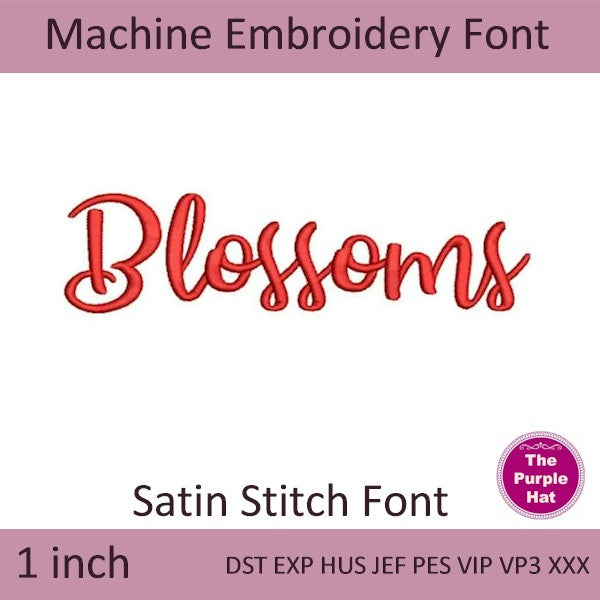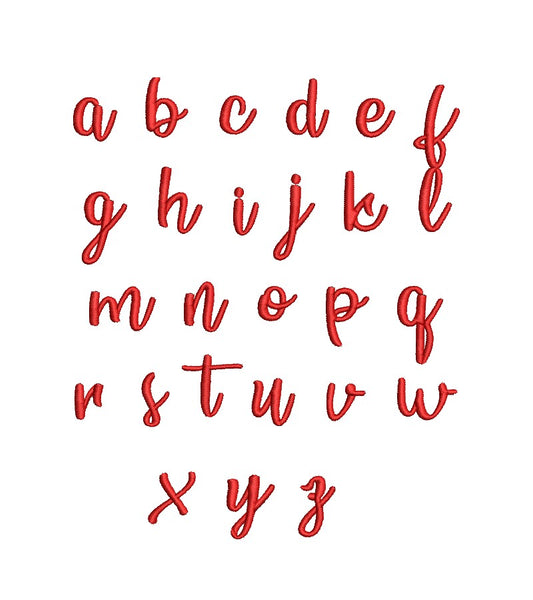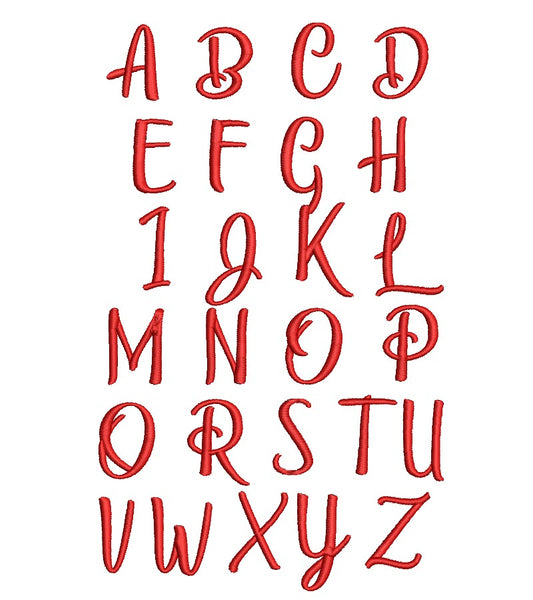
Blossoms machine embroidery font 1 inch
🌸 Blossom Satin Stitch Font
A modern and beautiful font to brighten up your embroidery projects!
🧵 Name: Blossom
🔠 Uppercase Letters: A-Z
🔡 Lowercase Letters: a-z
✨ Style: Modern satin stitch
📏 Size: 1 inch font (some letters like K, J, and Y are up to 1.5 inches)
🌼 Let your creativity bloom with the Blossom font — perfect for adding a sweet, handmade touch!